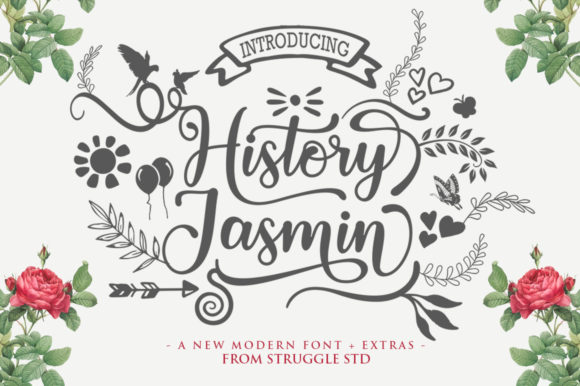
Embark on a captivating journey into the world of History Jasmin, a script font family that weaves a tapestry of elegance, grace, and sophistication. This exquisite creation of Struggle Studio paints a picture of timeless beauty, leaving an indelible mark on your designs.
Immerse yourself in the delicate embrace of History Jasmin, where each character dances across the page with poise and harmony. Its carefully crafted strokes evoke a sense of nostalgia, transporting you to a realm of classicism and refinement.
As you explore the depths of History Jasmin, you'll discover a treasure trove of features that elevate your designs to new heights. Its varying baseline adds a touch of dynamism, while the smooth lines and gorgeous glyphs create a visual symphony that captivates the eye. And with a collection of stunning alternates, you have the power to personalize your designs, making them truly unique and unforgettable.
Unleash your creativity with History Jasmin and watch your ideas blossom into masterpieces. Its versatility knows no bounds, adapting seamlessly to a vast array of projects. Whether you're crafting elegant wedding invitations, creating captivating social media posts, or designing stunning logos, History Jasmin will elevate your work to new levels of artistry.
Experience the magic of History Jasmin and let its enchanting aura transform your designs into works of art. Don't miss this opportunity to add a touch of enchantment to your projects. Immerse yourself in the world of History Jasmin and let your imagination soar!